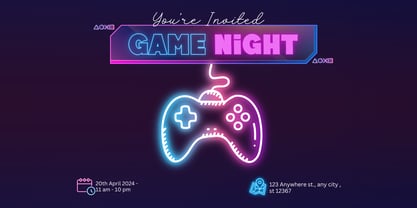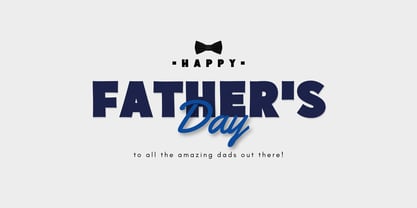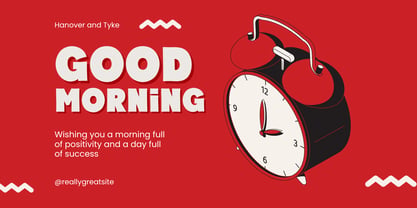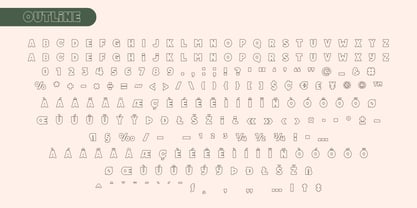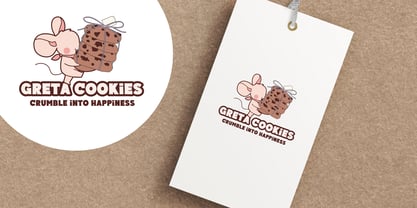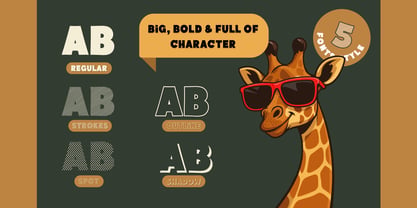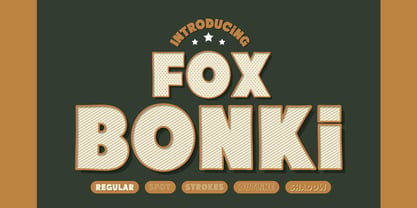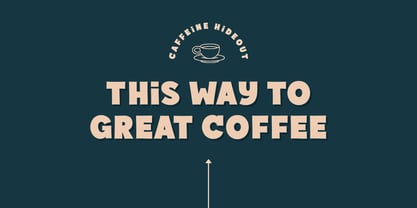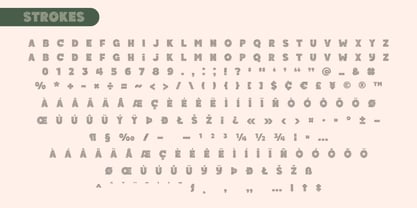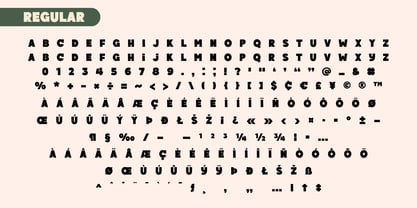
Fox Bonki
Meet Fox Bonki, a big, bold, and incredibly fun display font designed to bring massive character to your creative projects! Inspired by playful retro vibes and cartoon aesthetics, this versatile font family comes packed with 5 distinct styles that you can mix, match, and layer to create eye-catching designs effortlessly.
Whether you’re crafting a cute logo for a bakery, designing playful children's merchandise, or creating standout social media graphics, Fox Bonki is your go-to choice for a friendly, energetic, and high-impact look.
ꕤ Perfect For ꕤ
✦ Logo & Branding
✦ Product Packaging & Labels (Perfect for snacks, bakery items, toys, and kids' brands)
✦ Merchandise Design (T-shirts, stickers, mugs, and tote bags)
✦ Children’s Books & Educational Materials
✦ Poster, Quotes, & Headline Graphics